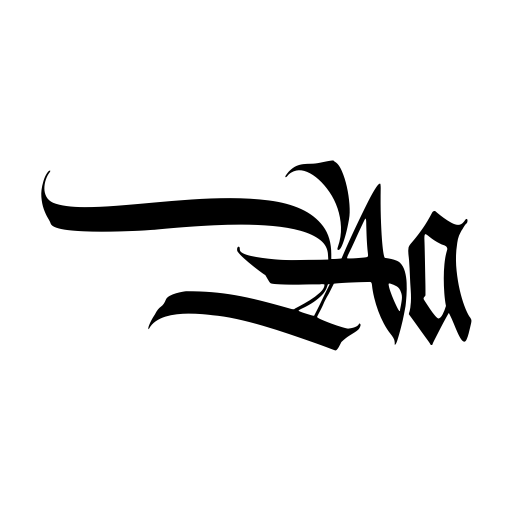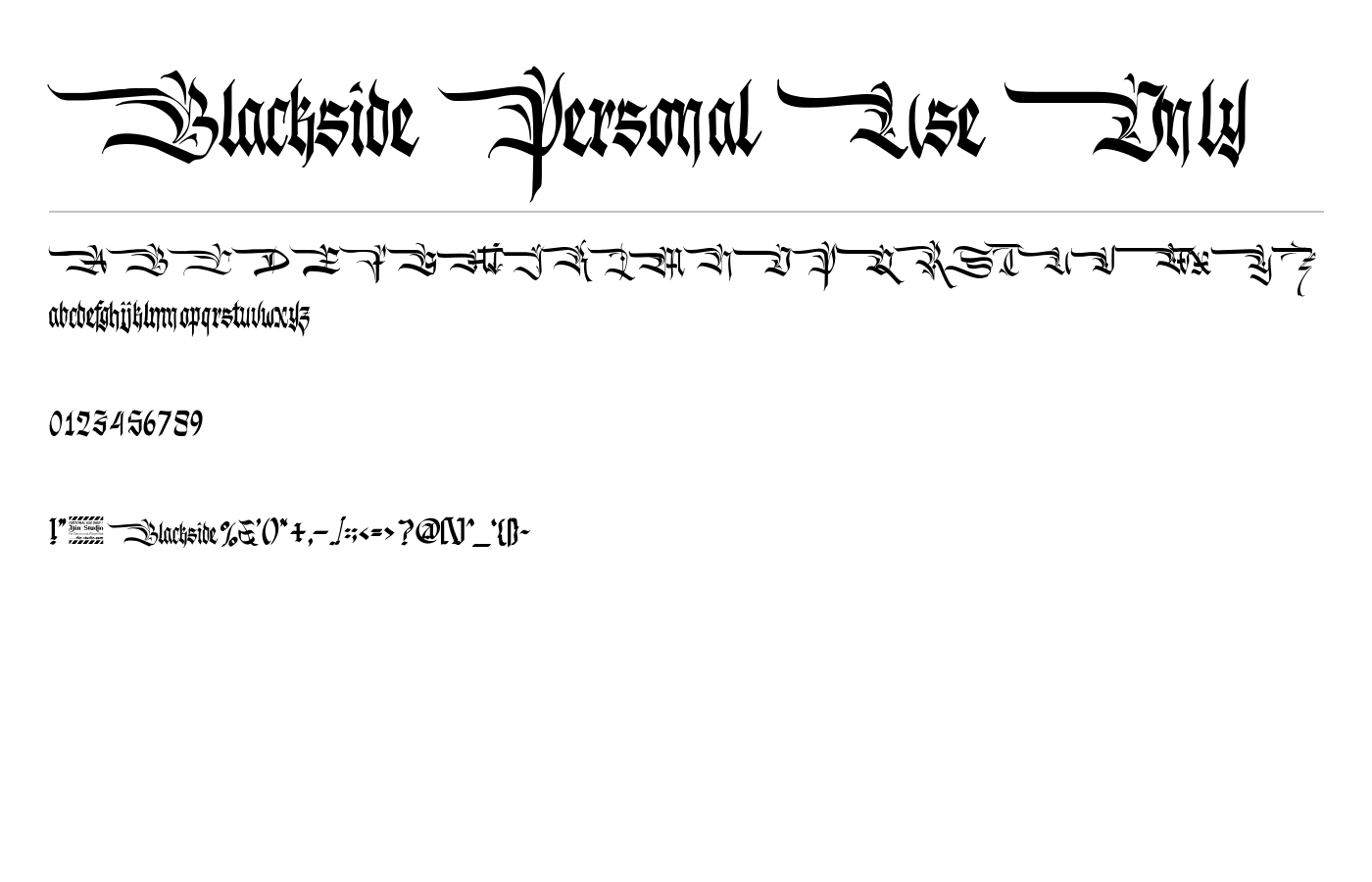
Blackside Personal Use Only is a bold, decorative blackletter font with intricate, sharp strokes and high contrast that evoke a strong Gothic and medieval vibe. Its ornate uppercase letters and tightly designed lowercase set create an intense, dramatic style perfect for vintage, heavy metal, or tattoo-inspired branding. This font works best in headlines, logos, or display purposes where a striking, edgy look is desired.
Blackside Personal Use Only Font
About Blackside Personal Use Only Font